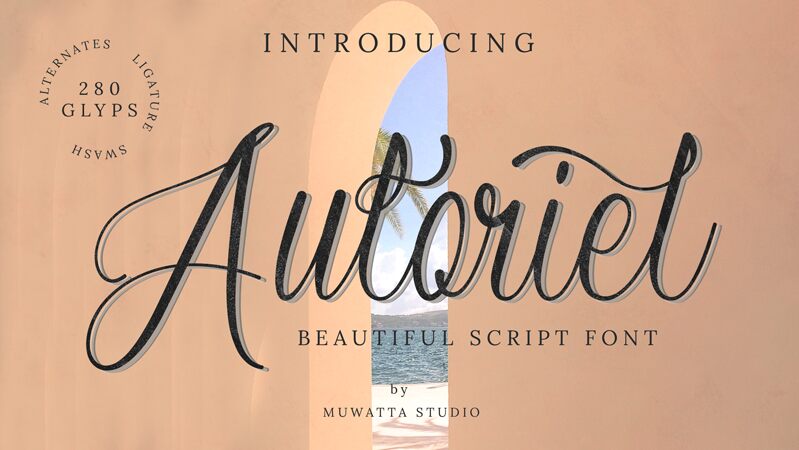
Auloriel Script by Bayu Wibisono is a stunningly beautiful calligraphy font that adds an air of elegance and sophistication to any project. With its light weight, it's perfect for delicate designs like wedding invitations, greeting cards, and feminine branding. The flowing curves and graceful strokes of Auloriel Script create a sense of romance and whimsy that would be ideal for poetry collections or children's storybooks. This font is also versatile enough to be used in modern digital designs like social media graphics, website headings, or even logos for luxury brands. Let Auloriel Script elevate your next creative project with its enchanting charm.
The font is perfect for branding, wedding invites, branding, logos, product packaging, invitation, quotes, t-shirt, label poster
Auloriel Script Features:
Uppercase
Lowercase
Number & Puntuaction
- Multilingual
- Ligatures
- Alternates
- Swash